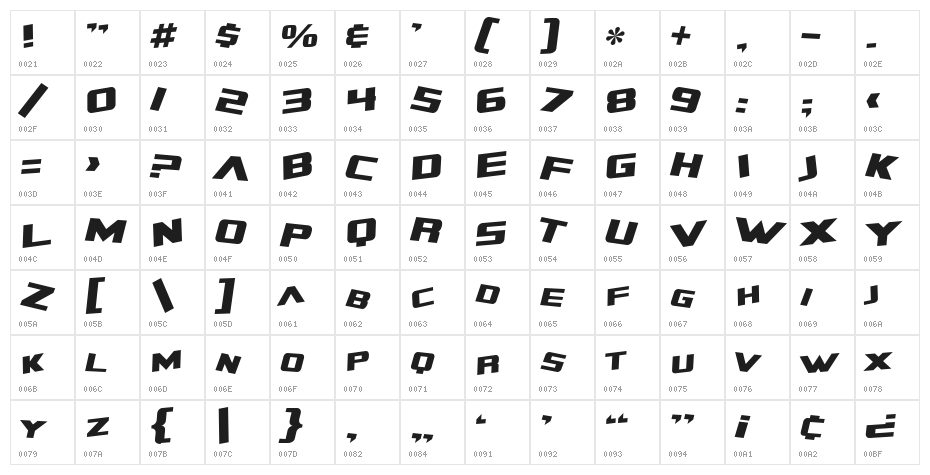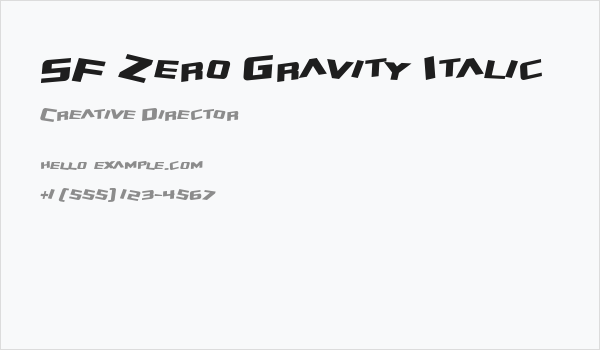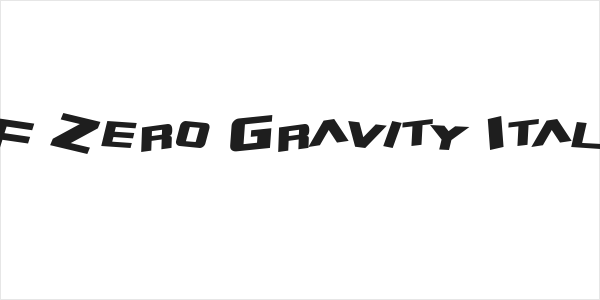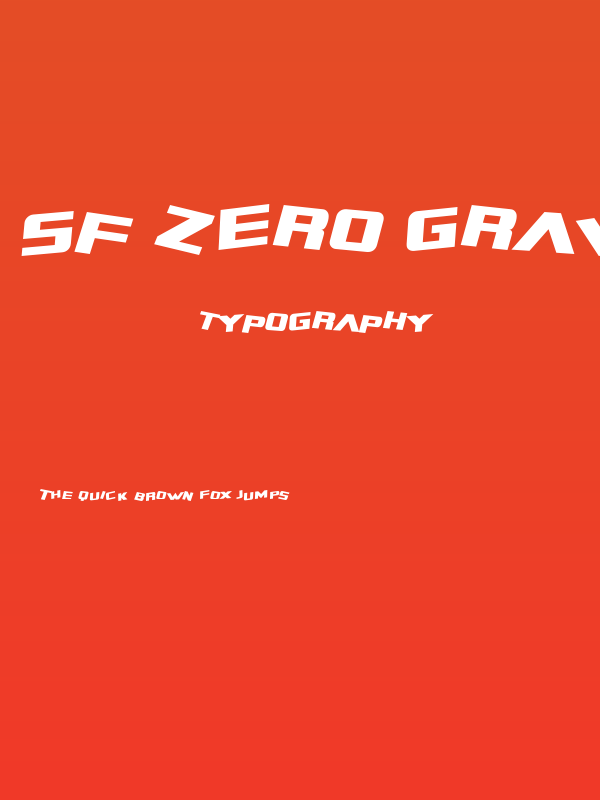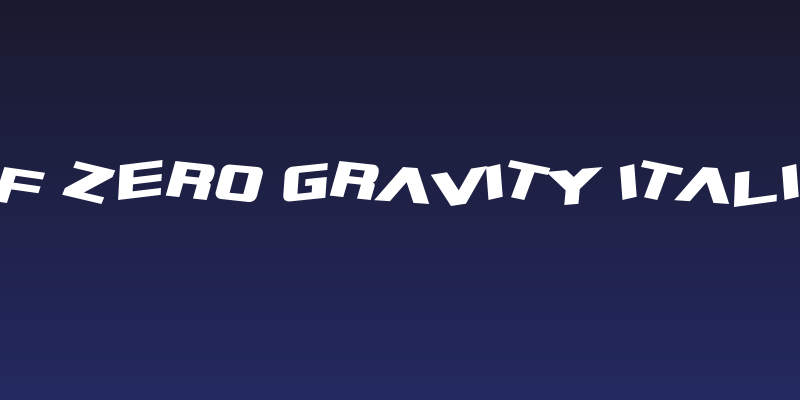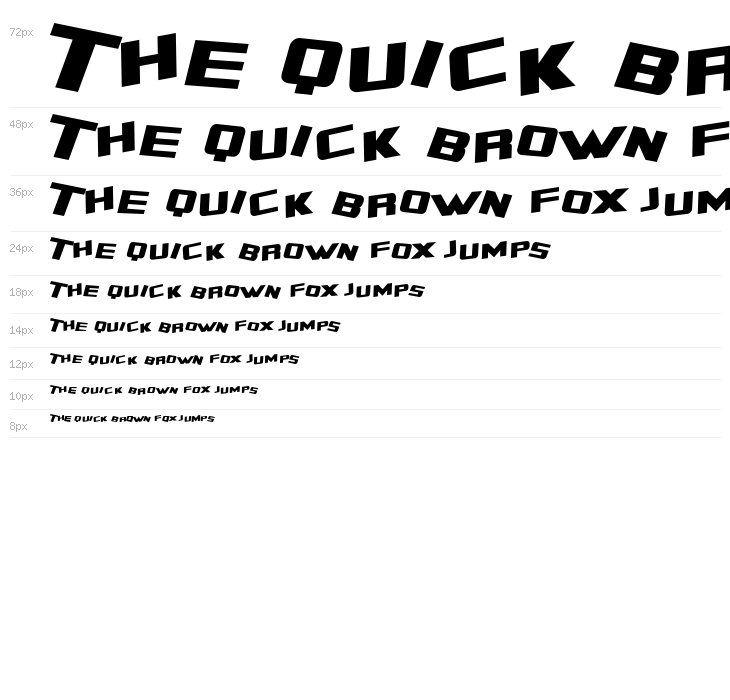
SF Zero Gravity Italic Font
SF Zero Gravity Italic Description
This font features a bold and dynamic design with a futuristic flair. The characters are italicized, giving them a sense of motion and energy. Each letter is crafted with sharp angles and a slightly condensed form, creating a striking visual impact. The numbers and special characters maintain the same bold and angular style, ensuring consistency across all elements. The overall look is modern and edgy, making it suitable for projects that require a strong and contemporary aesthetic.
| Proposed Projects | Ideal for sci-fi themed designs, video game graphics, tech branding, and dynamic posters. |